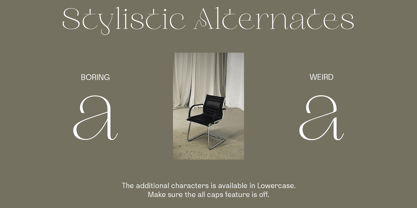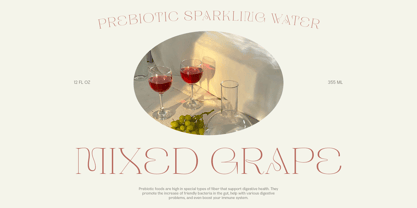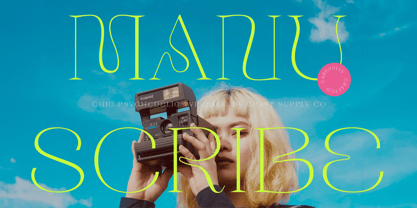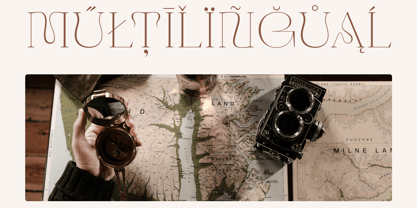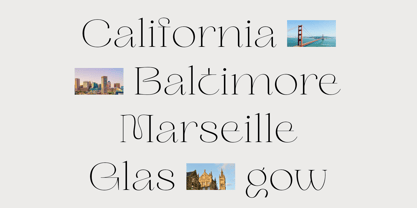
Manuscribe
by Craft Supply Co
The Manuscribe Font Family was designed by Trio Nazzar Saputra, Wahyu Hadi Yuana and published by Craft Supply Co. Manuscribe contains 2 styles and family package options. More about this family
Manuscribe pyschedelic Typeface is an elegant psychedelic font with smooth flow and sharp serifs, excellent both for display and short text purposes. Its design is pretty unique, and it adds something to your projects, whether prints or digital designs. Manuscribe can elevate everything from posters and flyers to branding and social media graphics; that’s how versatile it is. The vivid and energetic character of the typeface is highly suitable for producing catching greeting cards, innovative packaging, or serious brand identity. Manuscribe adds a touch of sophistication and trendiness whether one is working on a craft project, title of a book, invitation to a wedding, or anything in between. The retro and pop vintage appeal it exudes also makes it very suitable for projects that need to catch the air of nostalgic or artistic vibe. Let your imagination run wild with the Manuscribe Psychedelic Typeface, then watch it weave its magic on your design. Be it a personal, more homemade-like project or a fully professional one, Manuscribe adds this special charm to it. Try its fancy psychedelic style to make your work fresh, full of life, and stylishly contemporary.
Designers: Trio Nazzar Saputra, Wahyu Hadi Yuana
Foundry: Craft Supply Co